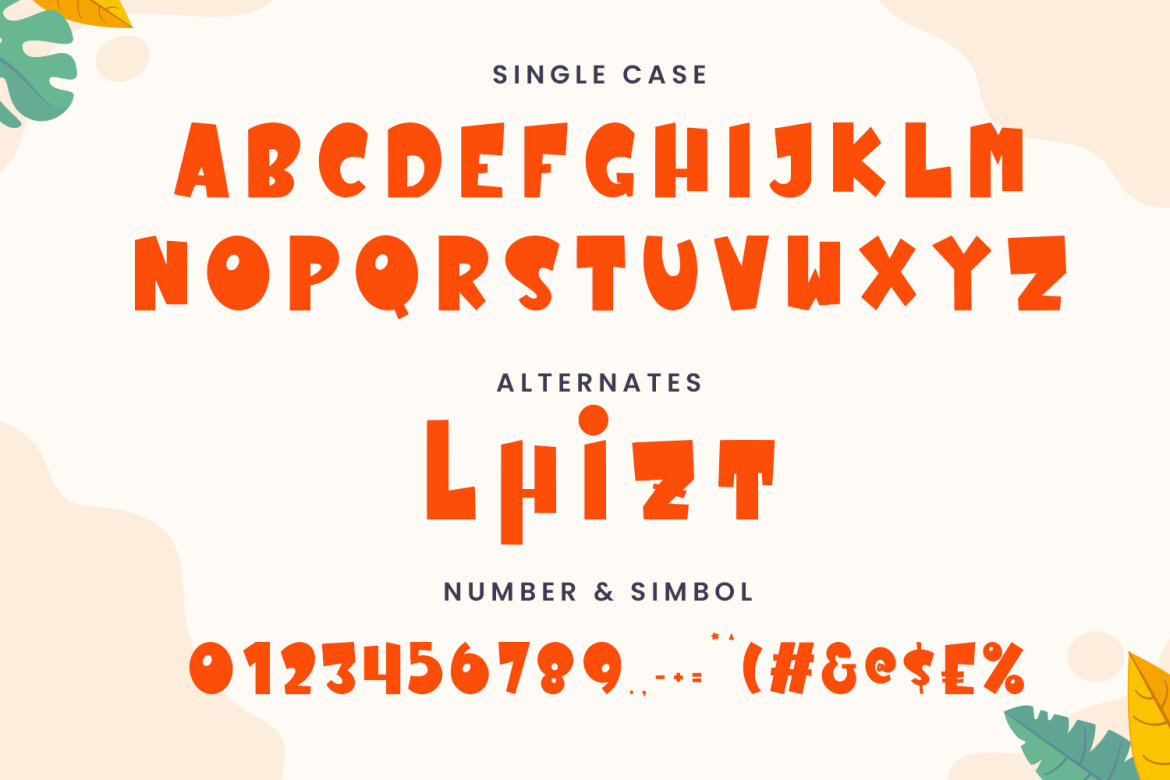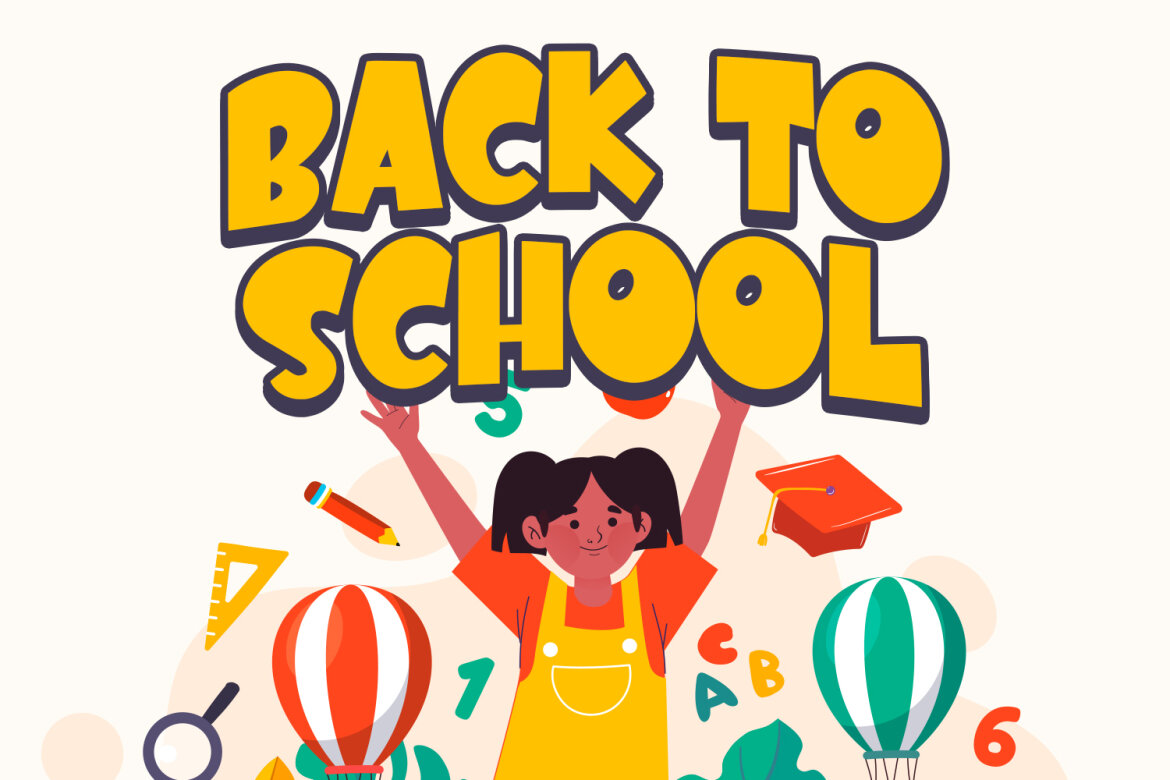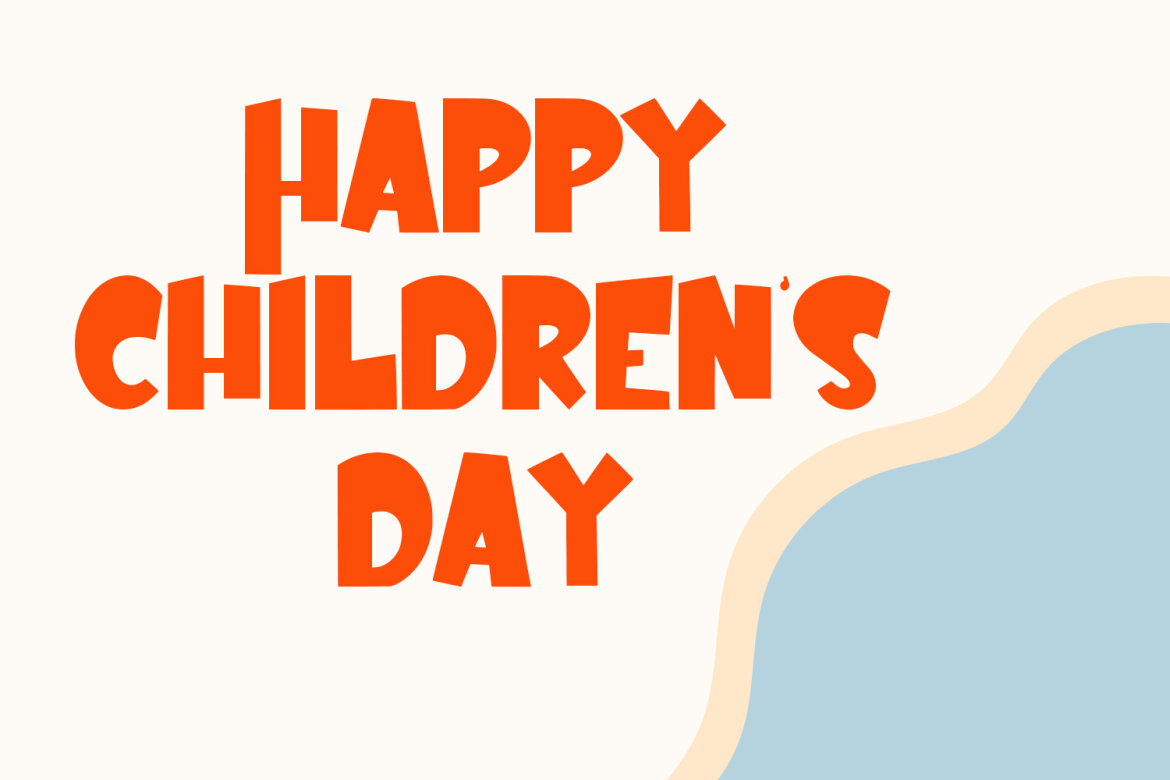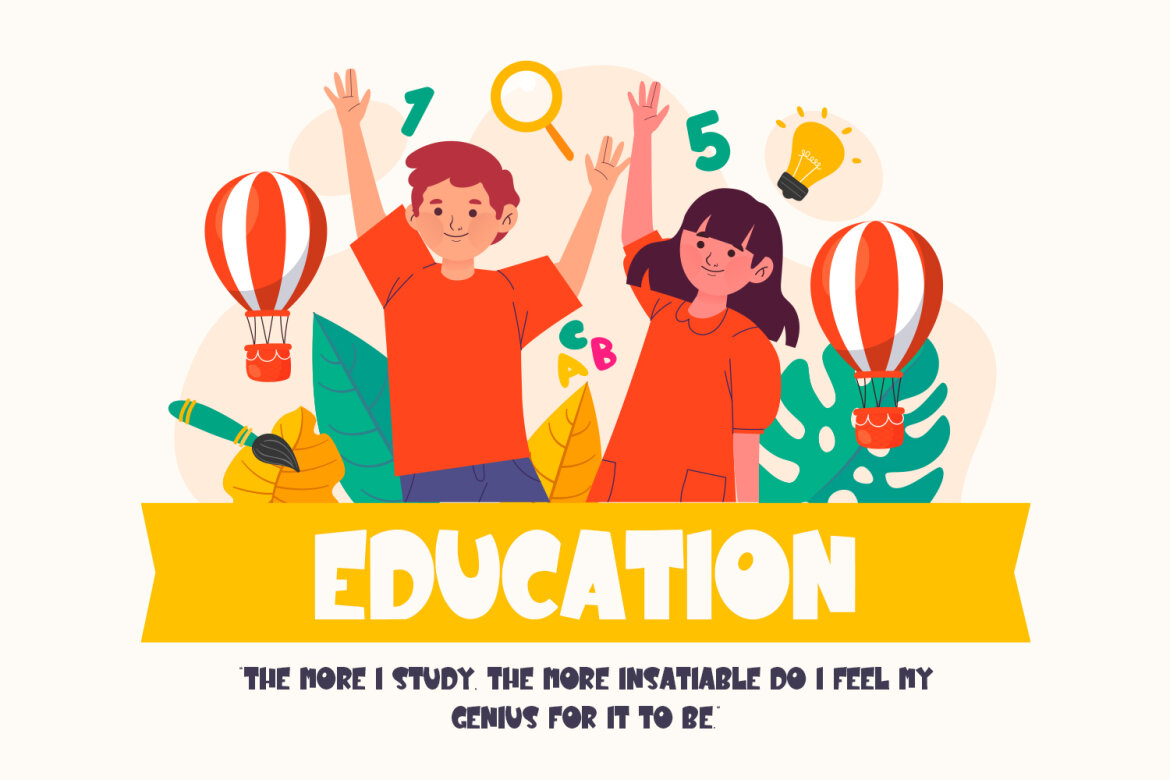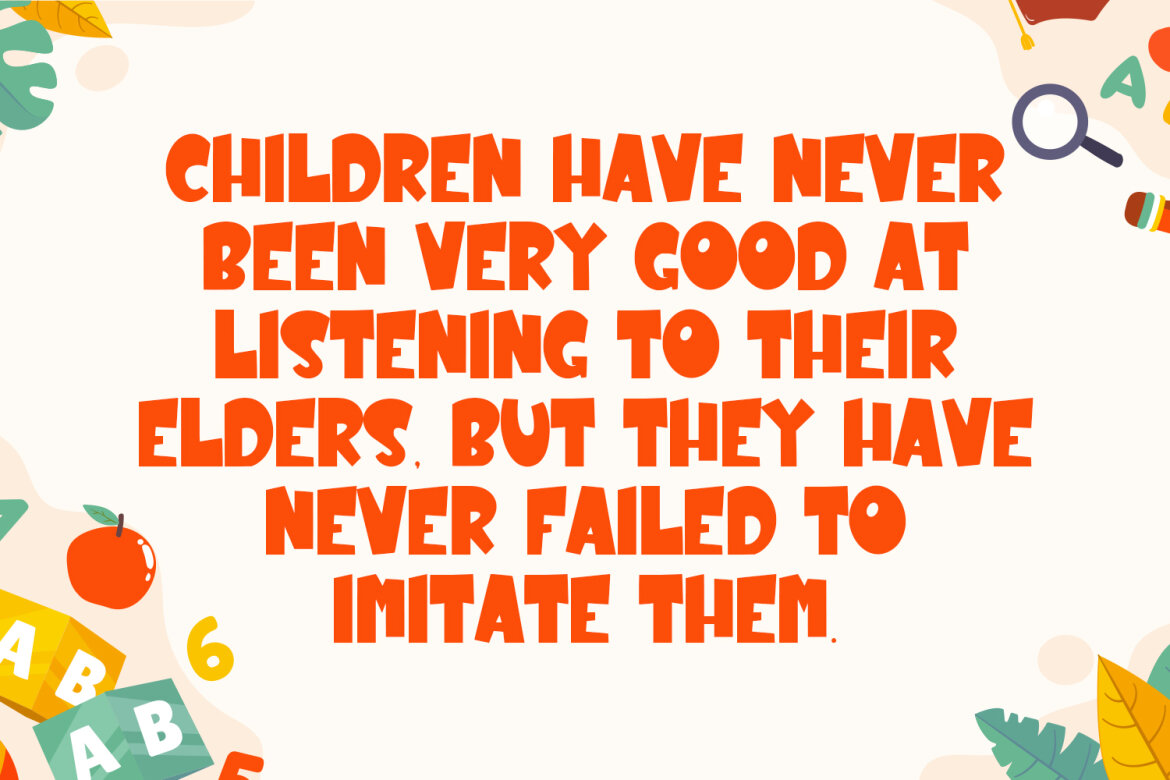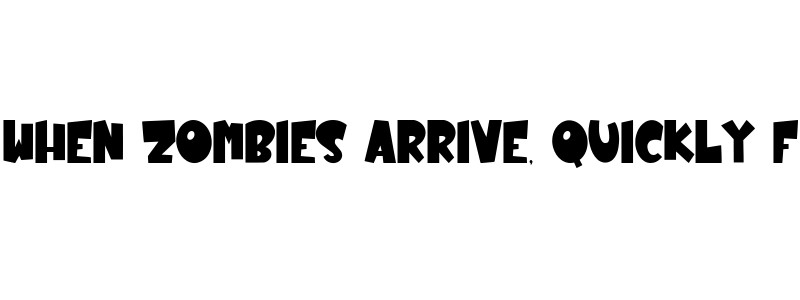
Zona Kidz Playful FREE Font
Zona Kidz
Zona Kidz is a modern round sans serif font. Bold stroke, fun character with a bit of ligatures and alternates. To give you an extra creative work. Zona Kidz font support multilingual more than 100+ language. This font is good for logo design, Social media, Movie Titles, Books Titles, a short text even a long text letter and good for your secondary text font with script or serif. Make a stunning work with Zona Kidz font.